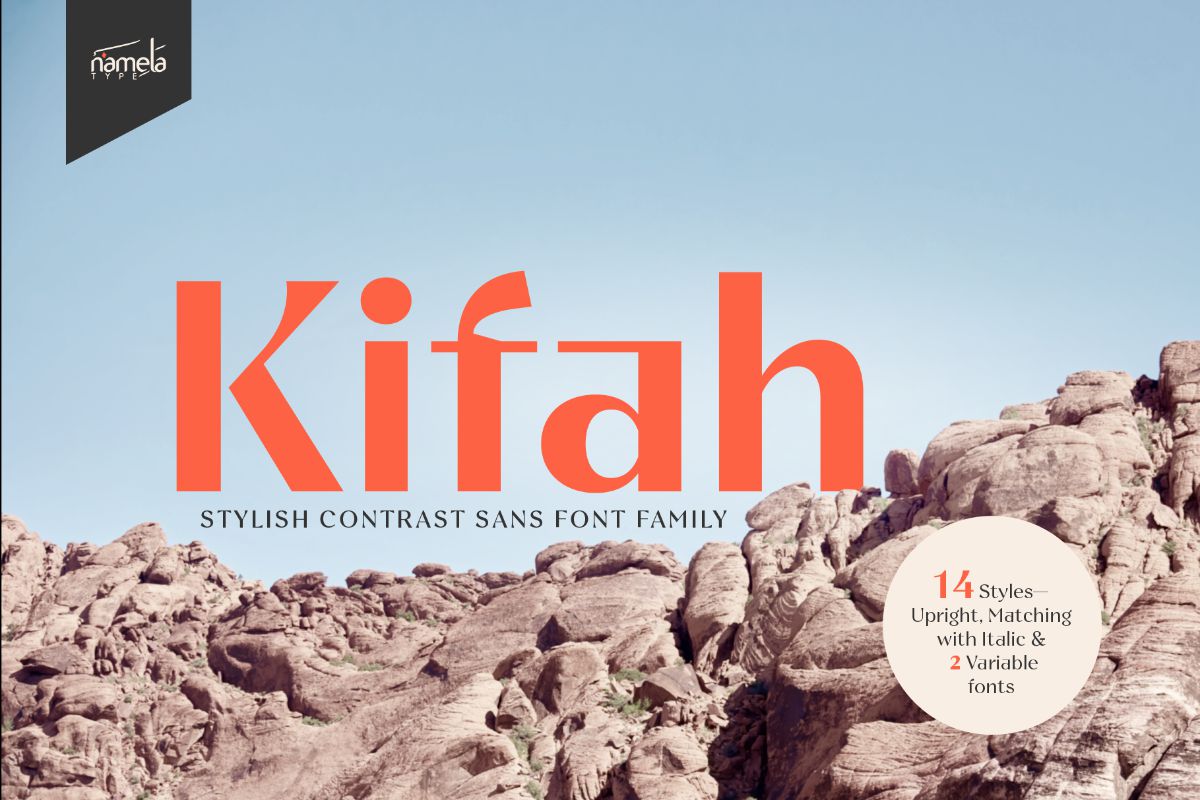
Kifah Bold Italic
Kifah Font - A Stylish Contrast Sans Typeface for Modern Branding and Corporate Not every sans serif is created equal. While many lean toward neutrality—useful, reliable, but often forgettable—Kifah takes a different path. This is a typeface with a clear voice. Built around controlled contrast and contemporary precision, Kifah Stylish Contrast Sans Font combines the clarity of modern typography with a refined visual personality that stands out without excess.